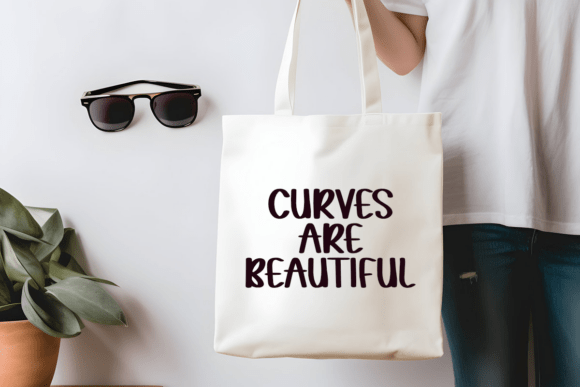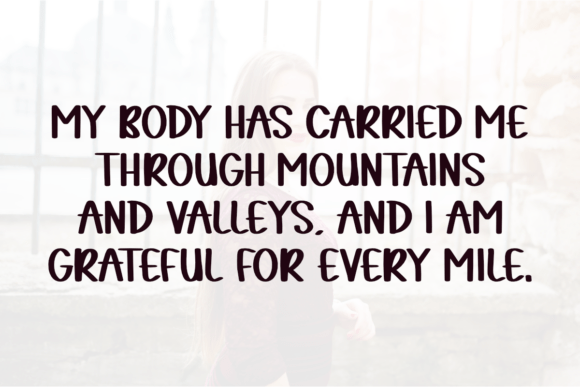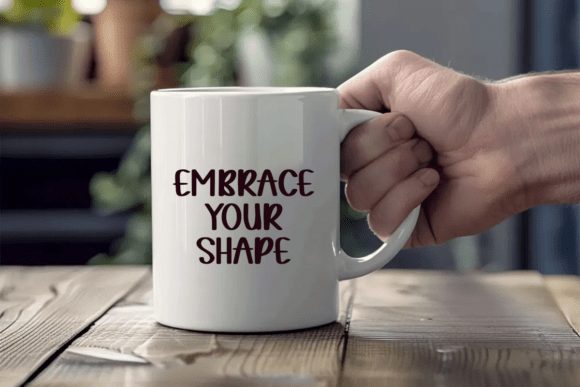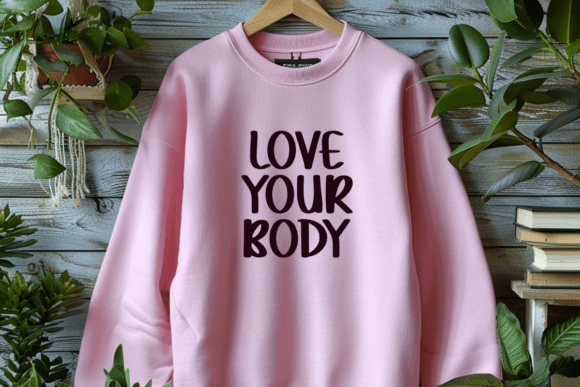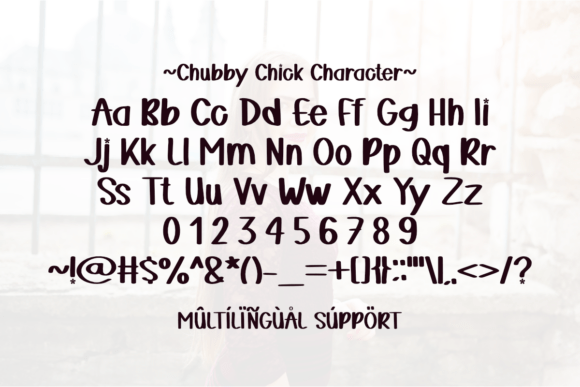
When Words Need a Smile
Have you ever stumbled upon a font that just makes you want to smile? For me, that font is Chubby Chick Font – a delightful sans serif that radiates pure positivity. I remember the first time I laid eyes on it: I was working on a project for a children’s book, and I needed a font that would convey the carefree spirit of my story. As I browsed through font collections, Chubby Chick Font caught my eye with its rounded curves and bouncy flow.
As a designer, I can attest that Chubby Chick Font is a valuable addition to any toolkit. Its playful vibe makes it perfect for branding, social media posts, and any project that needs a friendly touch. Whether you’re creating a logo, a children’s book, or simply a post for Instagram, Chubby Chick Font is sure to bring a smile to your audience’s faces.
Chubby Chick Font Key Features
- Font Size and Style: The font comes in a single size, with various styles including Regular, Italic, Bold, and Bold Italic, allowing for versatile use in different design contexts.
- Unique Characteristics: The Chubby Chick Font features a playful, rounded design with a touch of whimsy, making it ideal for use in children’s books, educational materials, and other applications where a friendly tone is desired.
Chubby Chick Font Review
Overall, I think Chubby Chick Font is a fun and playful addition to any design project. ✨ I love how it’s a bold and eye-catching font that can really make a statement. The rounded edges and chunky texture give it a friendly, approachable feel that’s perfect for kid’s books, food brands, or any project that needs a touch of whimsy.
- Works well for projects that need a bold, playful feel
- Can be used for kid’s books, food brands, and other projects that need a fun, approachable tone
- Easy to read, even at small font sizes
That being said, there are a few limitations to keep in mind. ⚠️ The font can feel a bit too loud or overpowering if used too extensively, so be sure to balance it out with other design elements. Additionally, the chunky texture can sometimes make it difficult to read at very small font sizes or in low-contrast environments.
Overall, I think Chubby Chick Font is a great choice for designers who want to add some personality to their projects. With a little bit of restraint and careful balancing, it can be a real showstopper.
The Chubby Chick Font is a playful and whimsical font that is perfect for use in:
1. Children’s books and educational materials.
2. Food and beverage branding.
3. Party and event invitations.
4. Social media graphics and advertisements.
For the best results, use the Chubby Chick Font in conjunction with bright and playful colors and graphics.
Q: What is the recommended font size for the Chubby Chick Font?
The recommended font size for the Chubby Chick Font varies depending on the intended use and the design context. As a general guideline, we recommend using font sizes between 12pt and 24pt for body text, and larger sizes for headings and titles. Experiment with different font sizes to find the optimal look for your design.